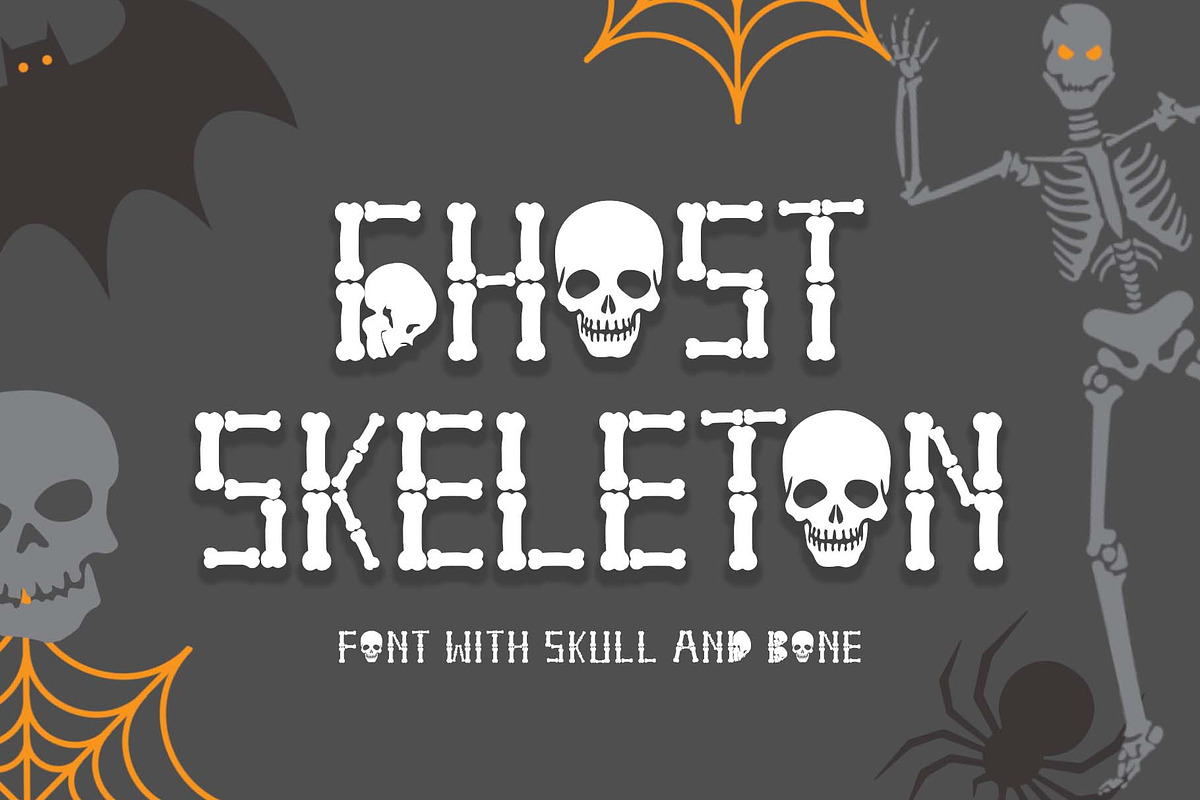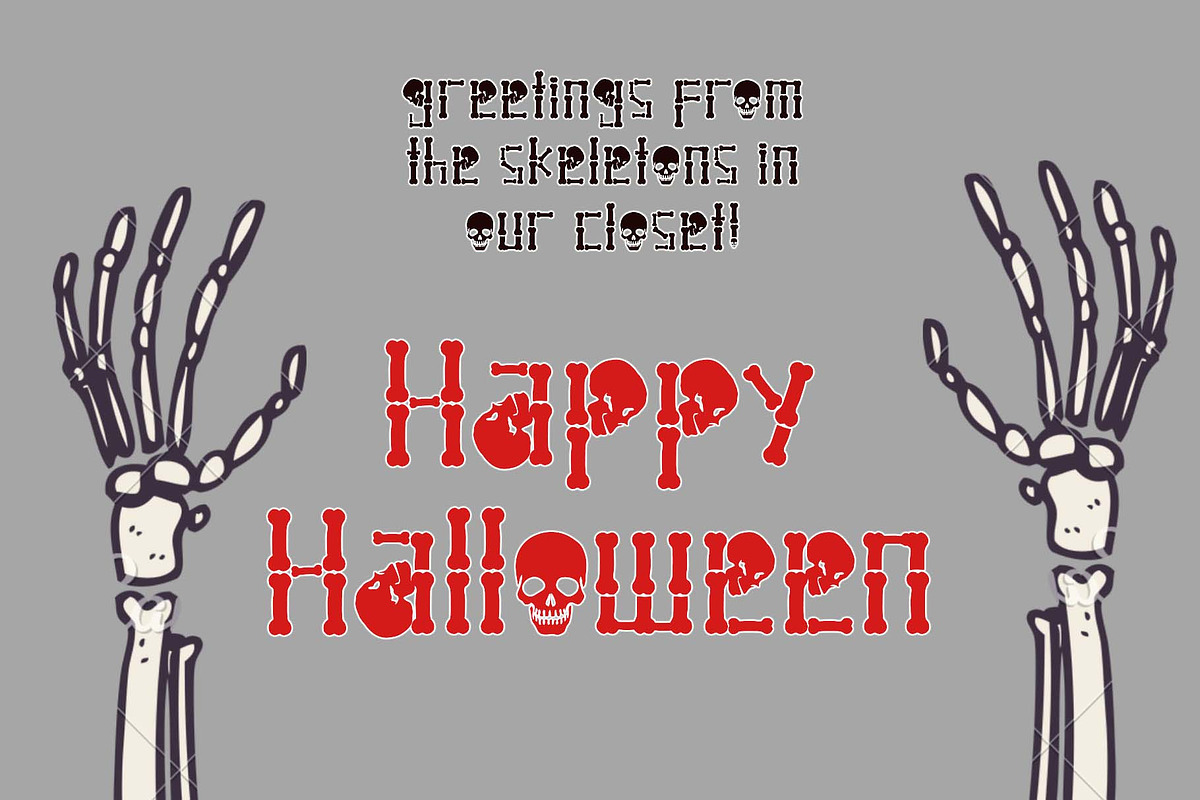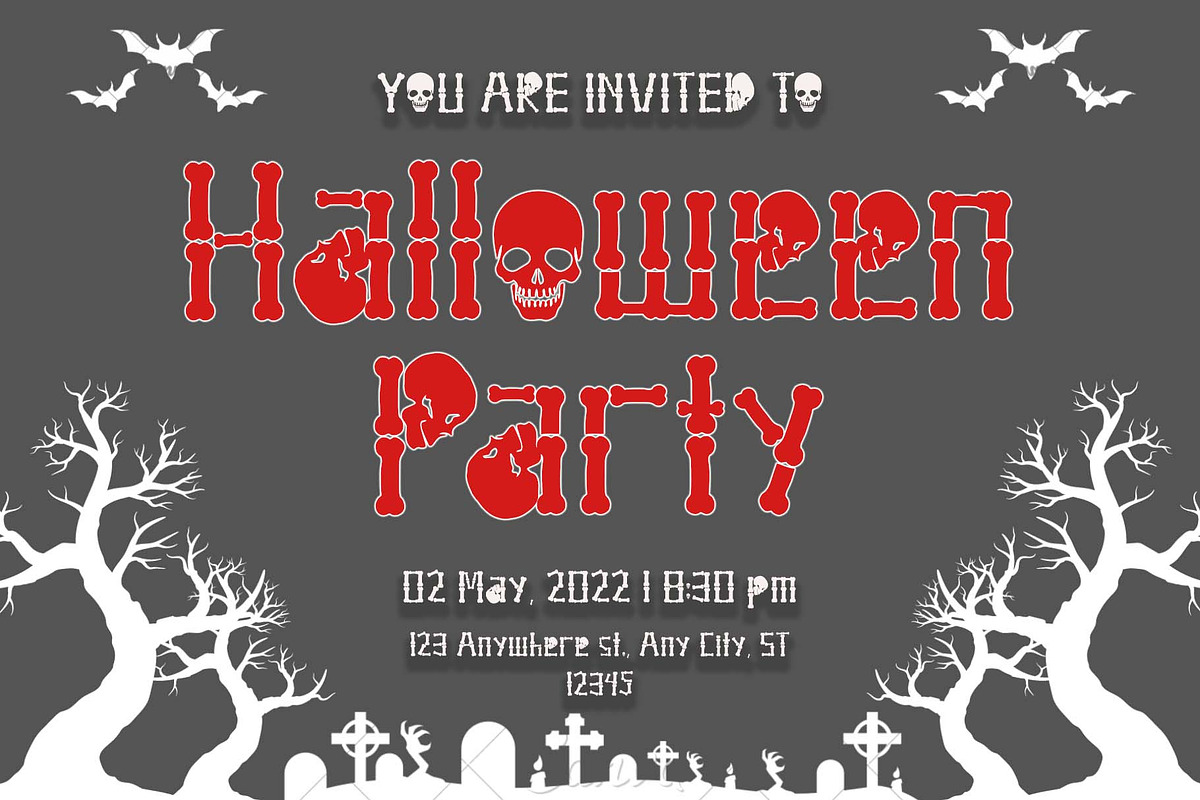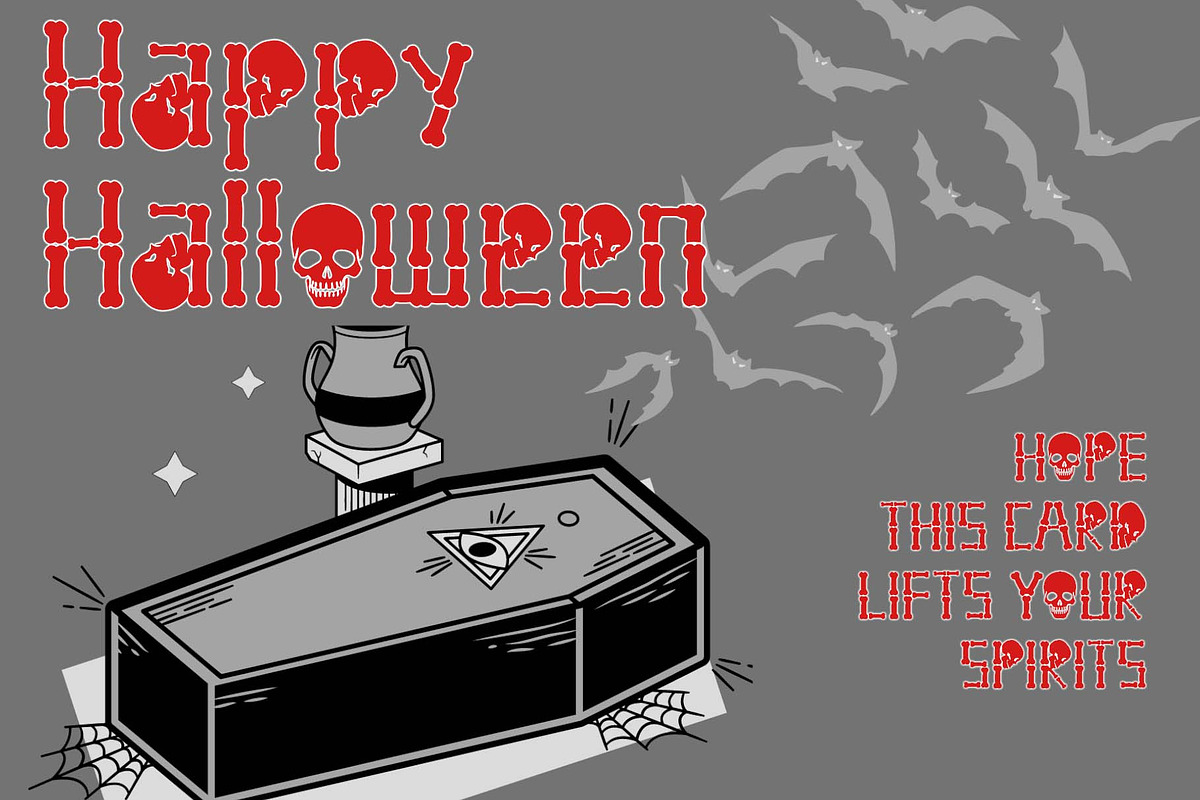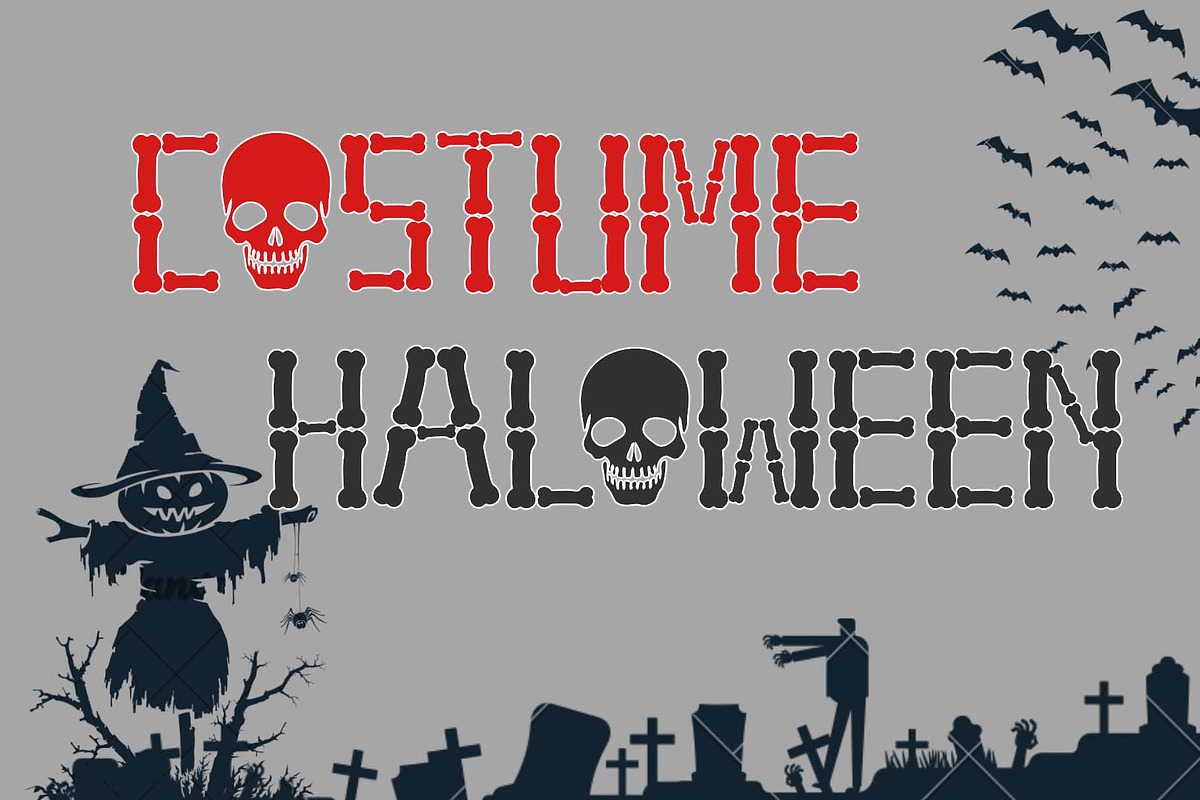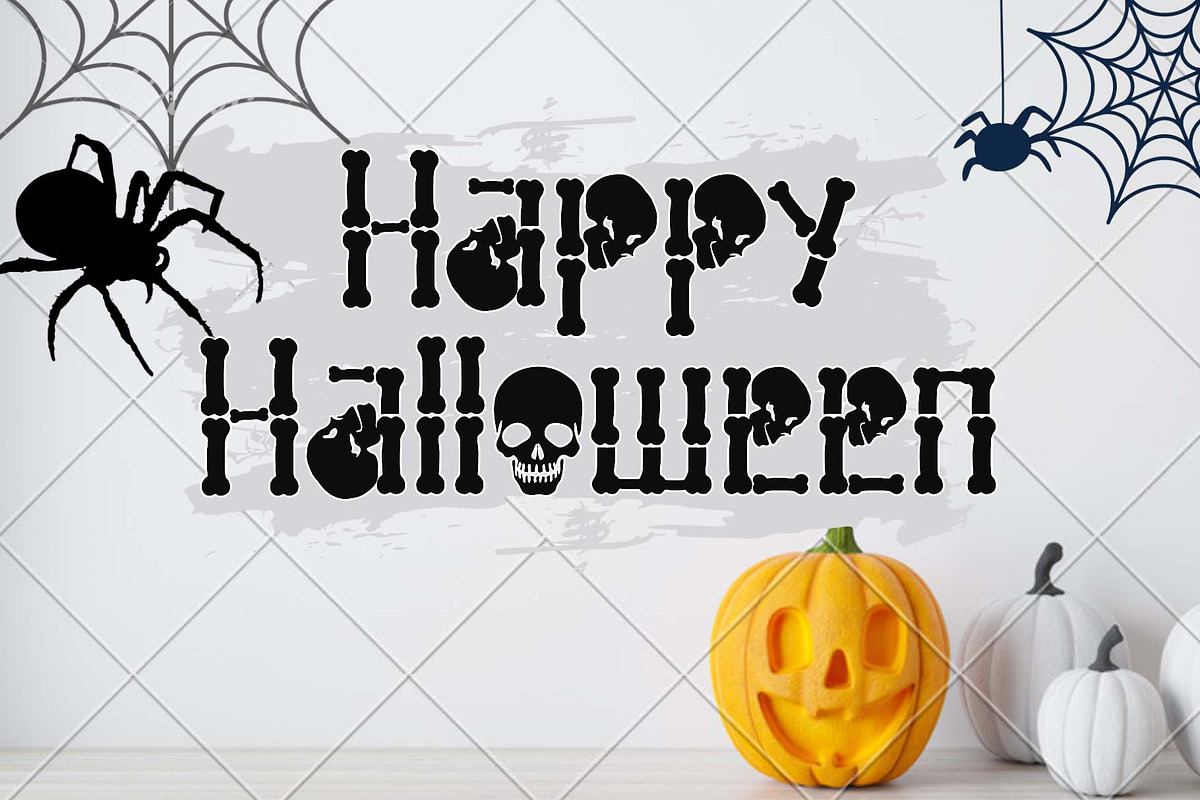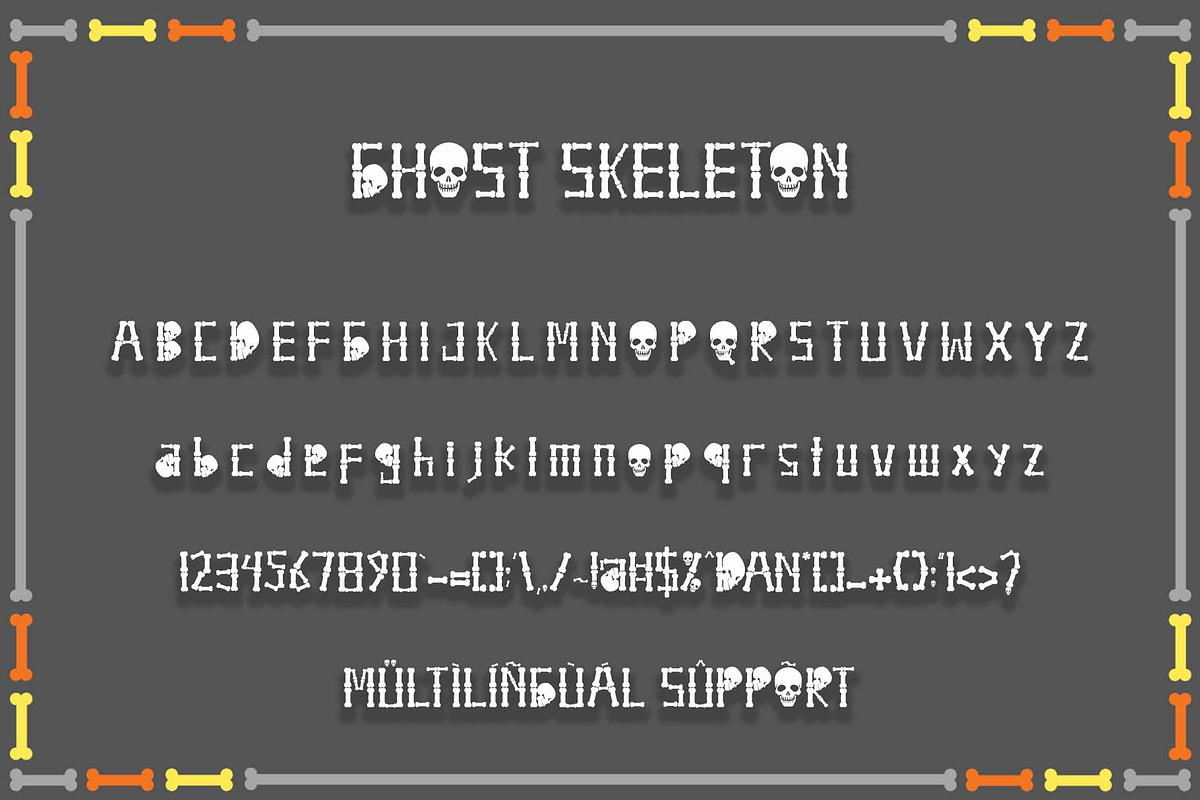
Ghost Skeleton
"Ghost Skeleton" is a font made from bones and skull shapes. This font is very simple, easy to use and consists of uppercase, lowercase, numerals, punctuations, and multilingual support. Very suitable for Halloween, comics, movie titles, invitations, social media and more.